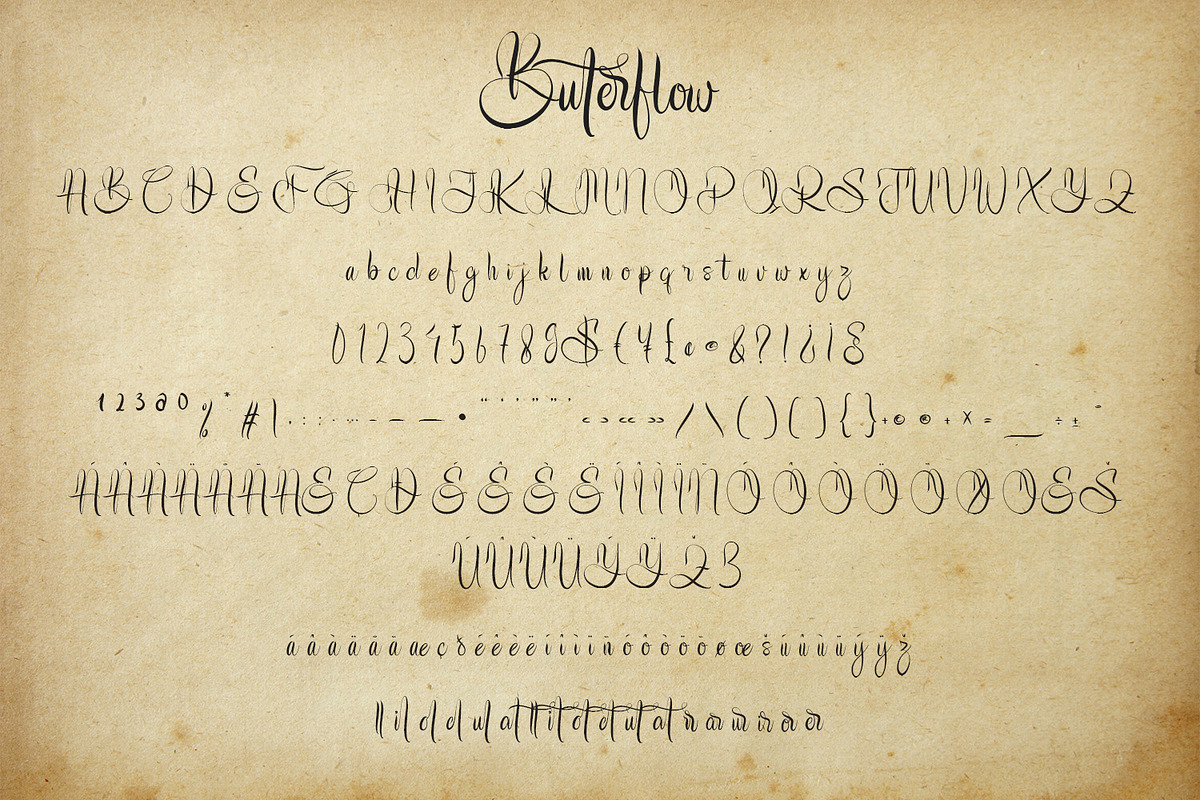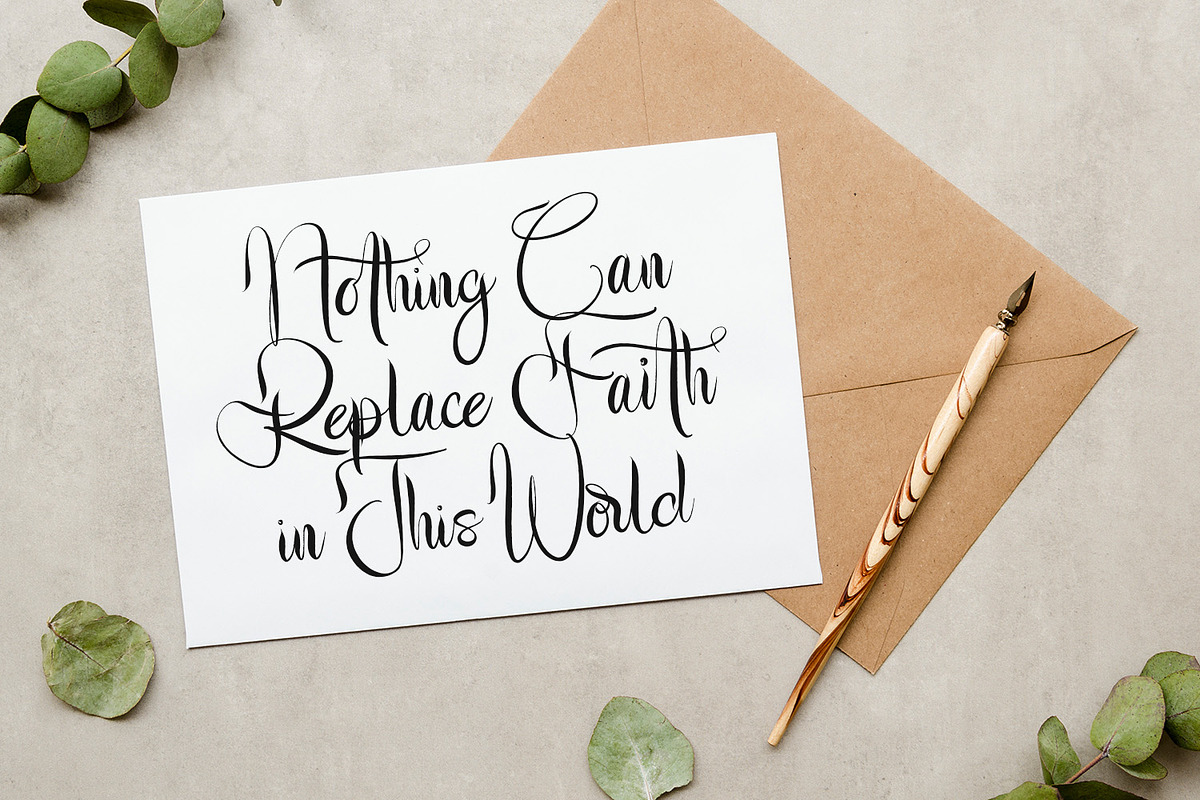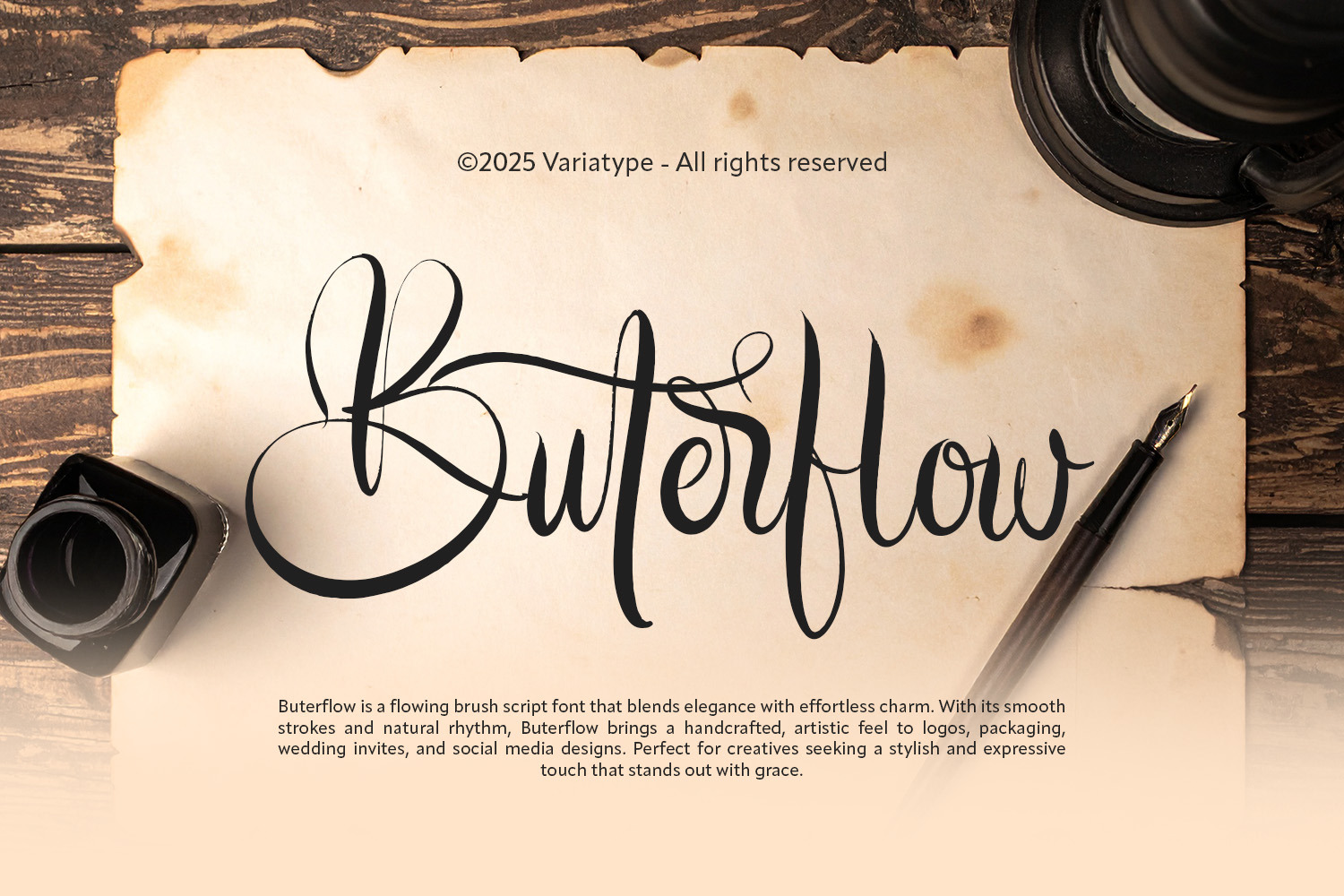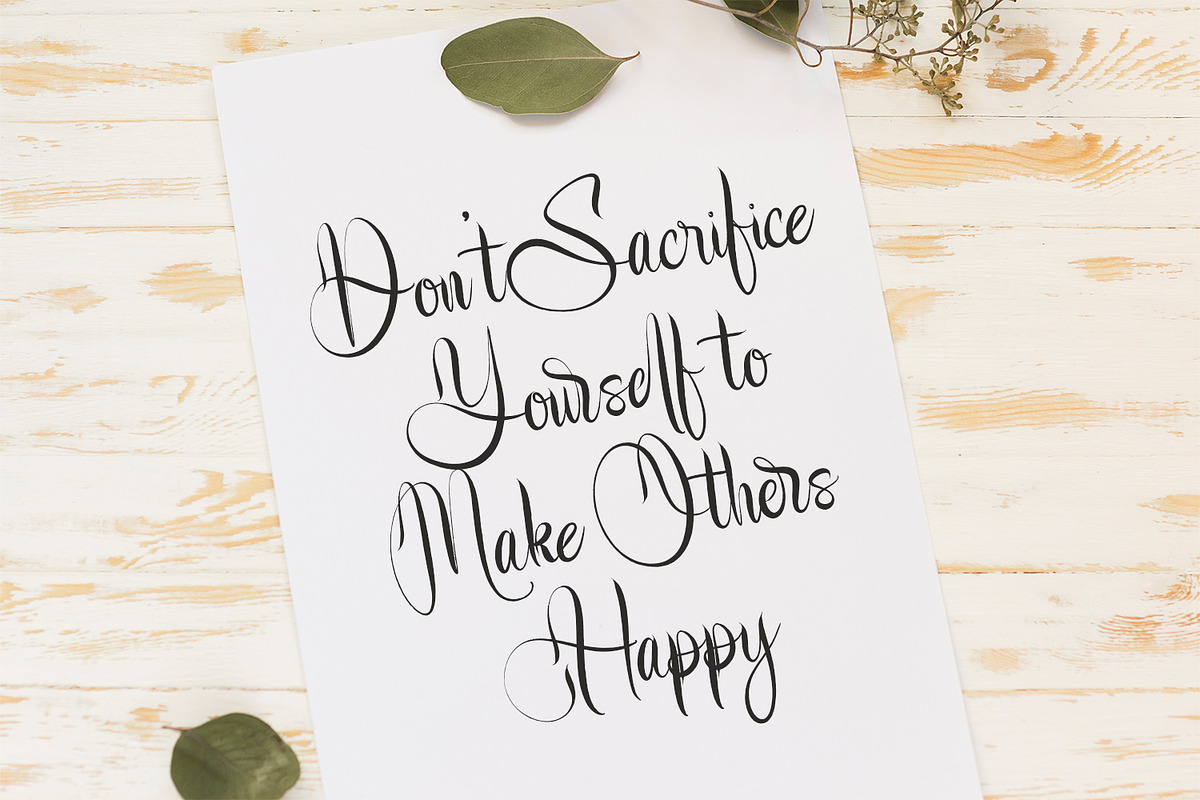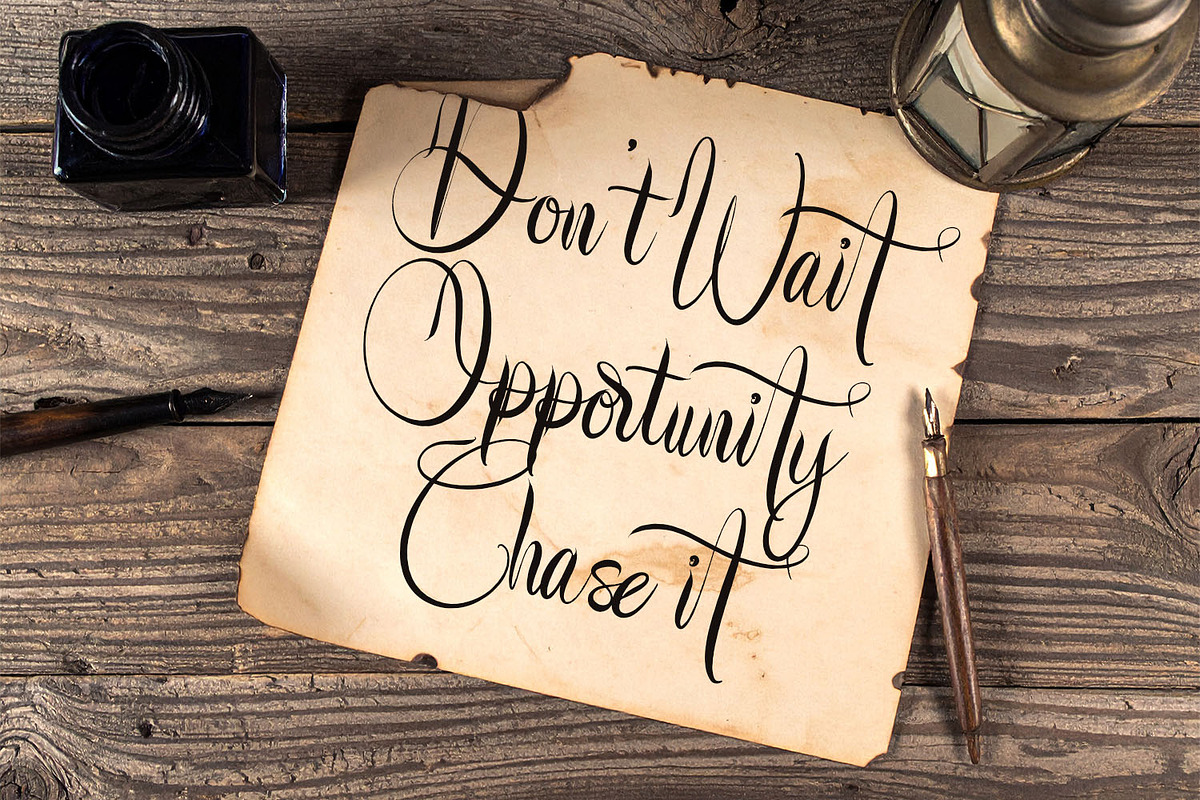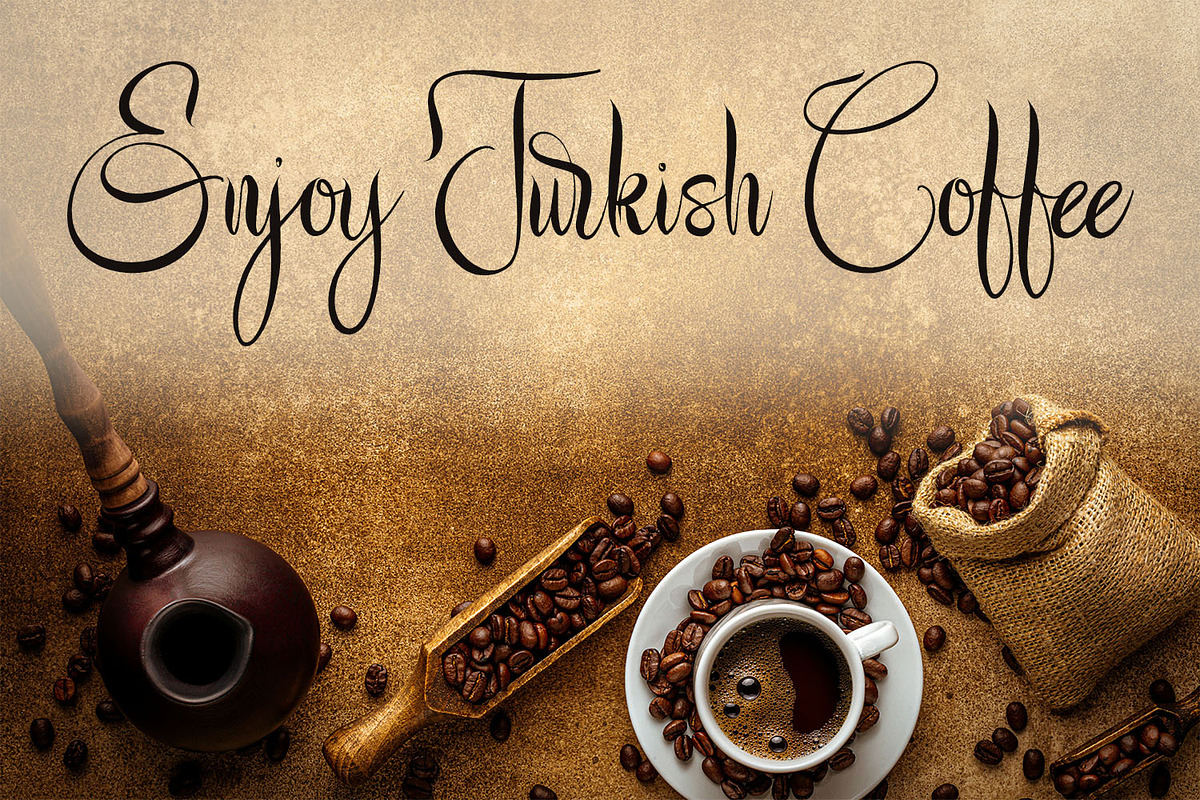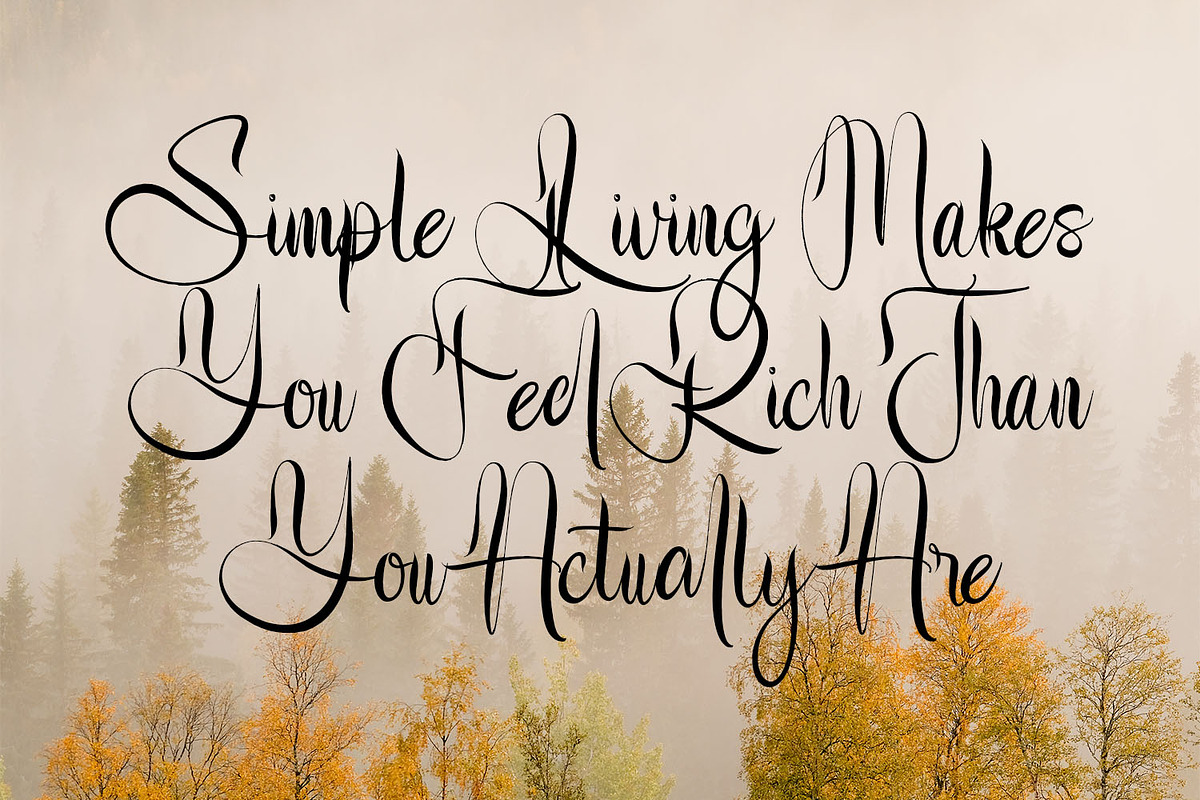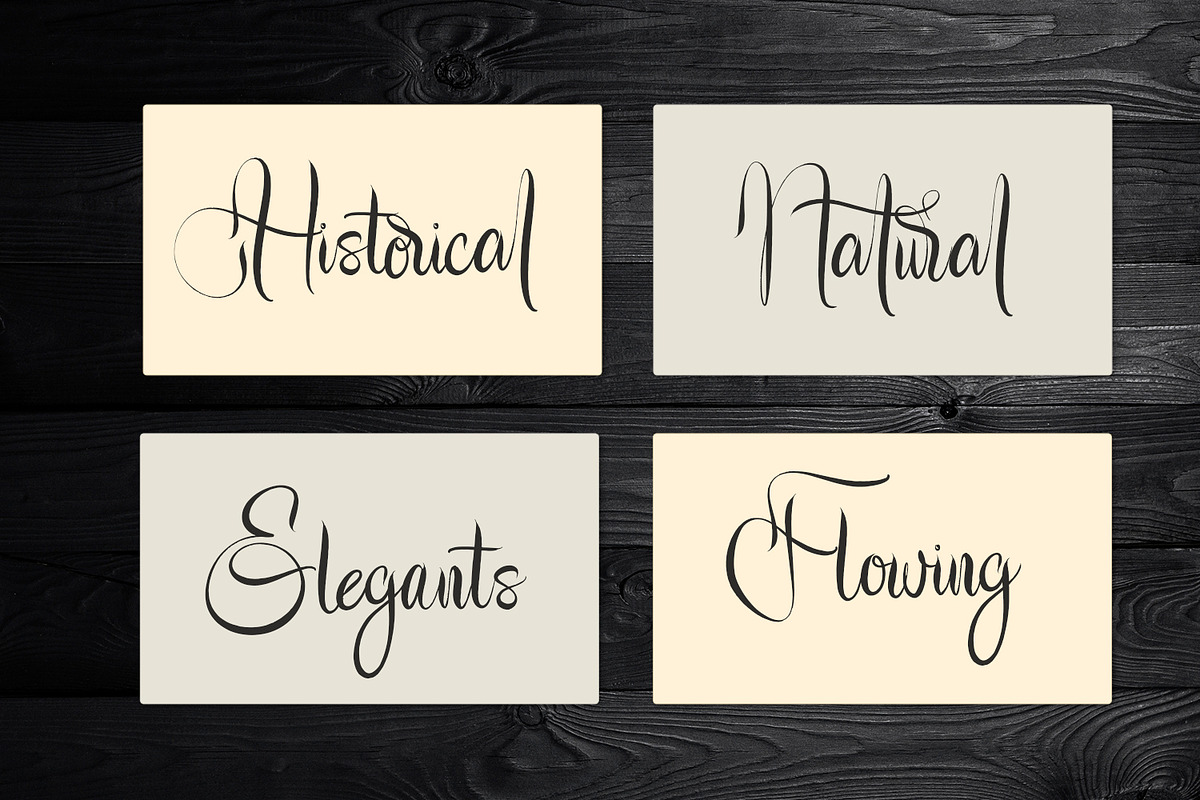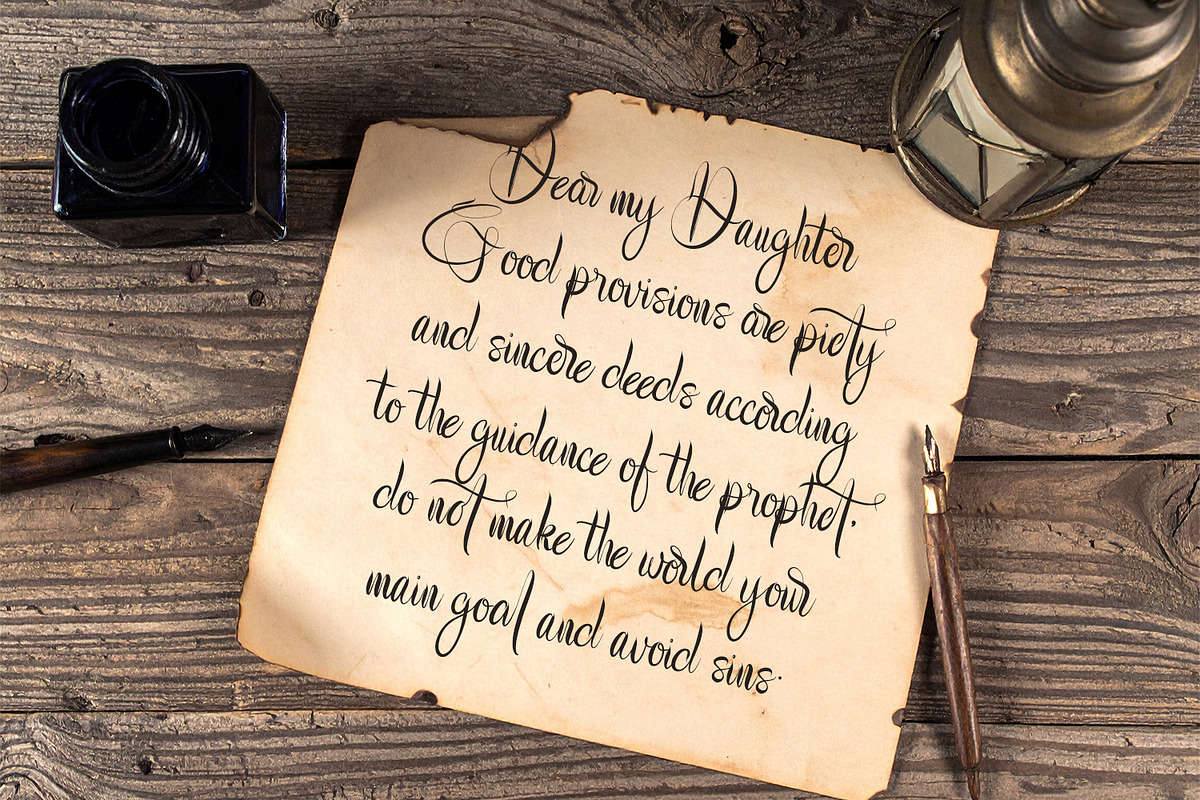
Buterflow - Historical Script Font
Buterflow is a flowing brush script font with a historical charm. Inspired by vintage calligraphy and classic handwriting, its elegant curves and handcrafted texture evoke a sense of heritage and artistry. Perfect for quotes, invitations, packaging, and editorial design. Buterflow adds a sophisticated, story-rich feel to any creative project.
Additional Accents